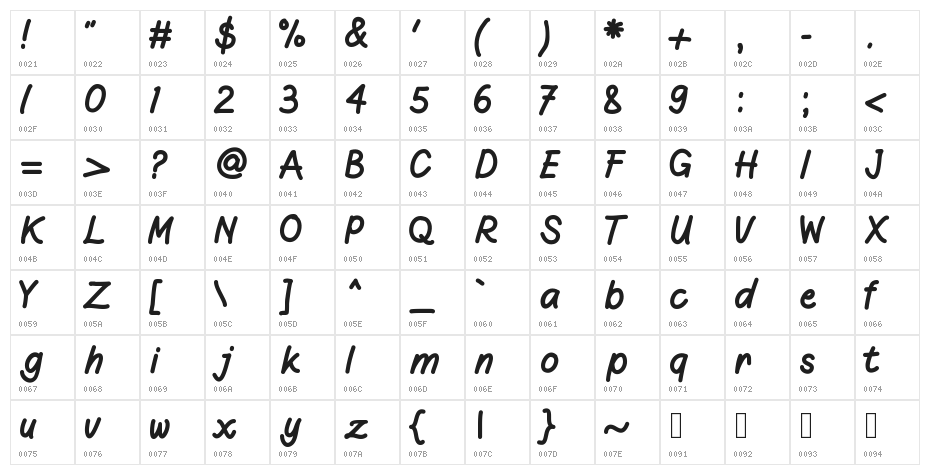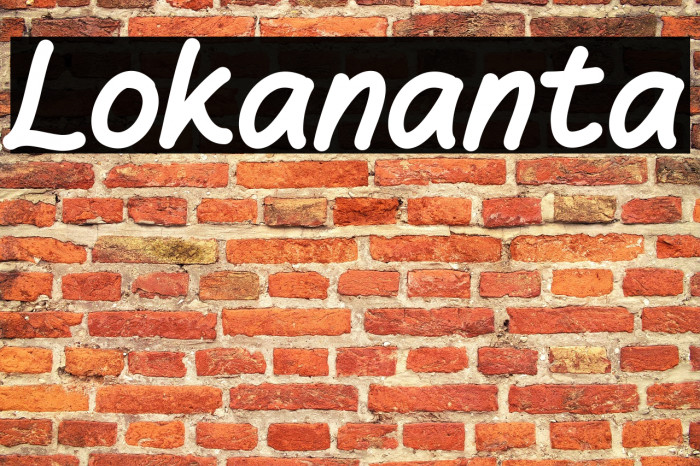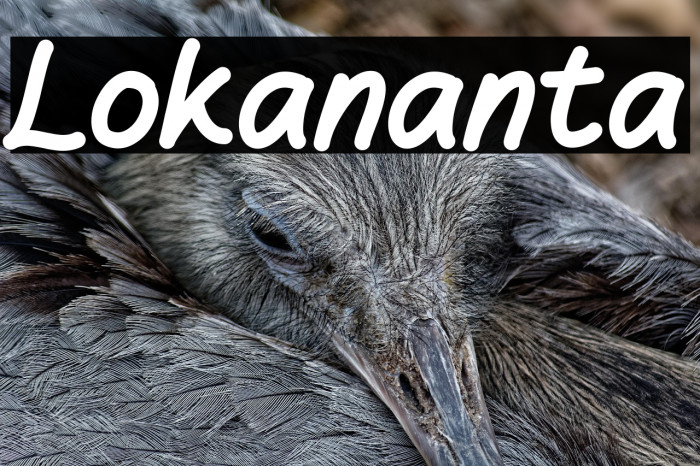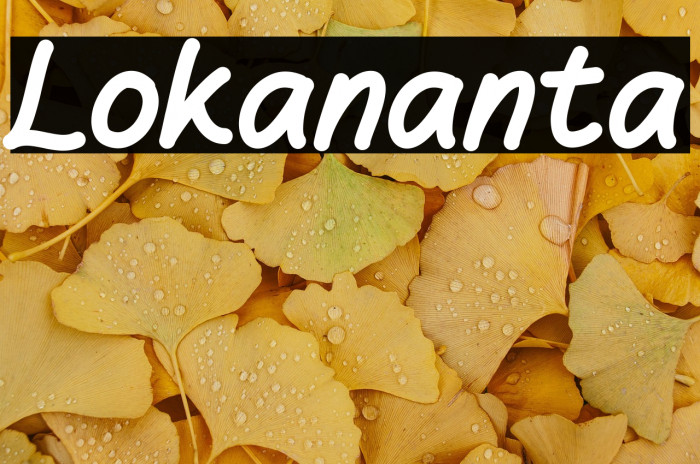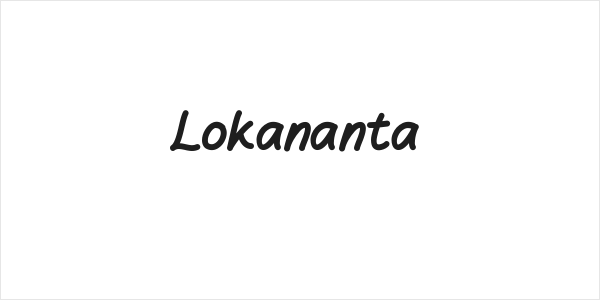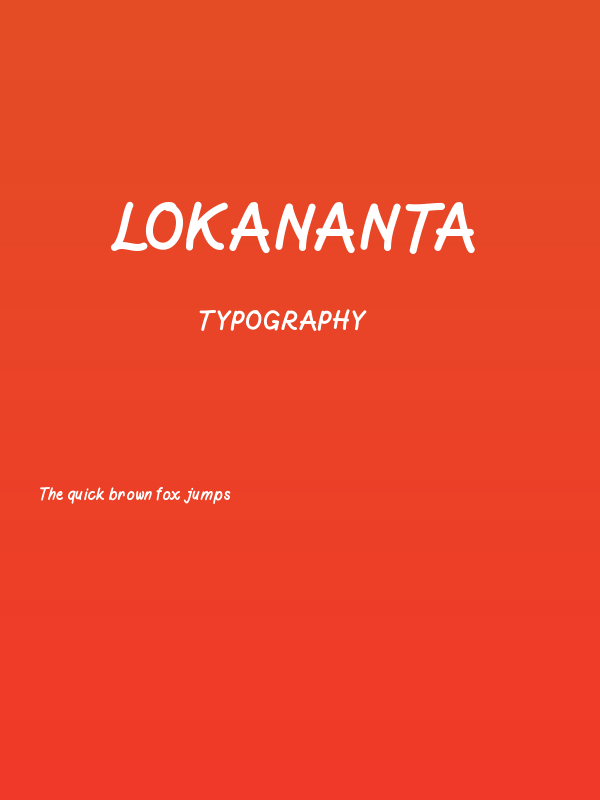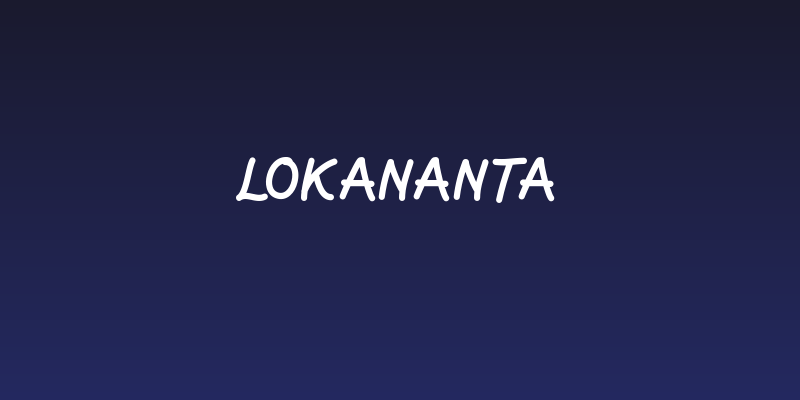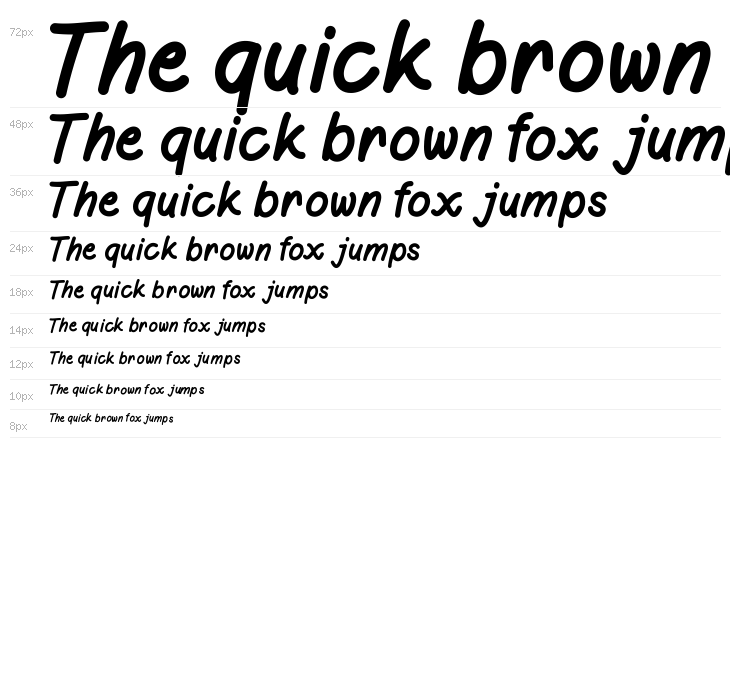
Lokananta Font
Lokananta Description
This font features a playful and casual handwritten style, characterized by its smooth, flowing curves and rounded edges. The letters are slightly slanted, giving a dynamic and informal appearance. The uppercase and lowercase letters maintain a consistent style, with the lowercase letters being slightly smaller and more compact. The numerals are bold and clear, ensuring readability. Special characters are well-integrated, matching the overall aesthetic of the font. The font's design is approachable and friendly, making it suitable for a variety of creative projects.
| Proposed Projects | Ideal for greeting cards, invitations, personal branding, and children's books. |